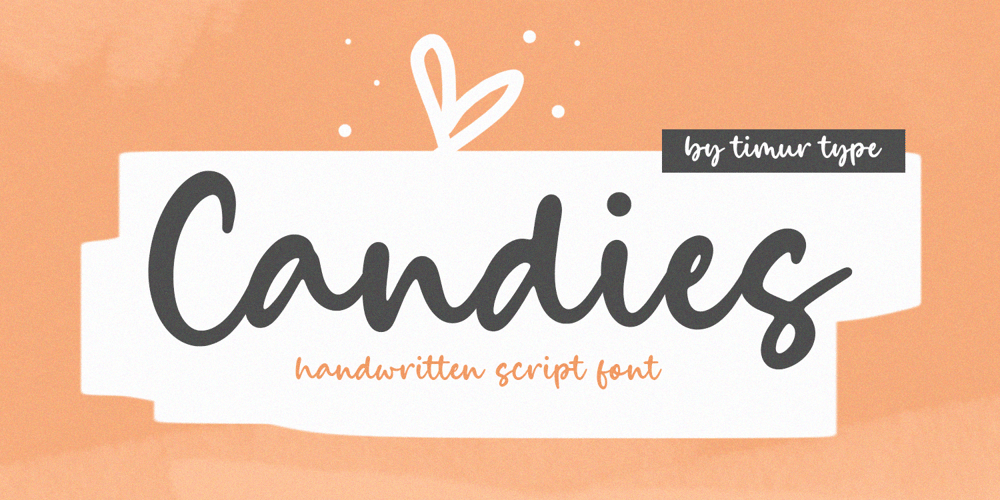
Candies
Candies font
Candies Font Family was designed by Wara Sigit Tri Pamungkas and published by Timurtype. Candies contains 1 styles and family package options. Introducing by Timur typeProudly Present, CandiesCandies A Handwritten FontCandies is perfect for product packaging, branding project, megazine, social media, wedding, or just used to express words above the background.Candies also multilingual support.Enjoy the font.Thank you!